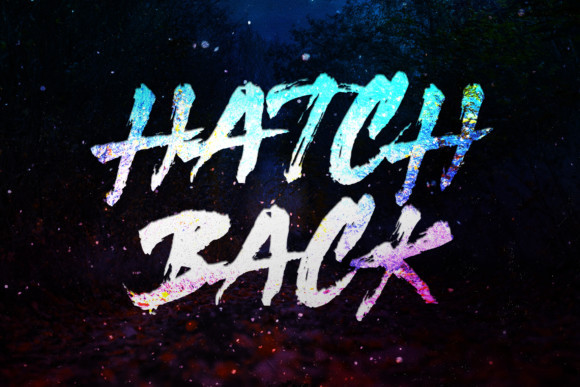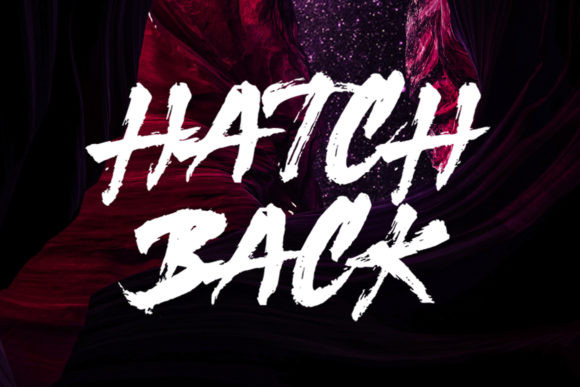
Hatchback Font
Hatchback is a casual, fun display font, created by using a brush pen. Clean and a little bit quirky, this font is the perfect fit for all of your logos, branding, social media, and crafty DIY projects.